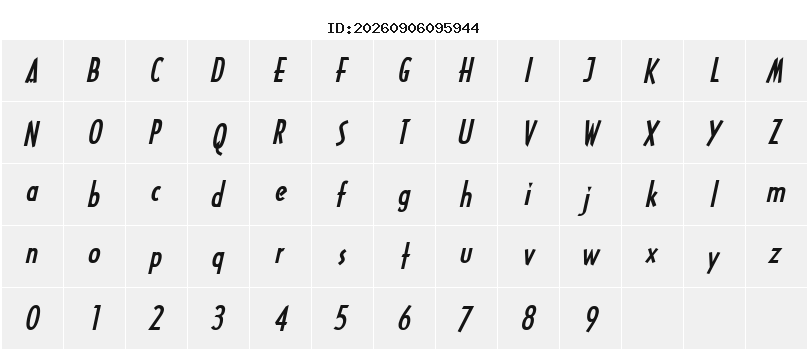
Tech Preview
• Font Name: Tech
• Font ID: FontMonger:Tech Bold Italic
• Full Font Name: Tech Bold Italic
• Version: 1.0 Wed Jul 28 19:04:51 1993
• PostScript Name: TechBoldItalic
• Character Count: 271
About Tech.ttf
Tech.ttf is a modern, elegant sans-serif font designed for ultimate readability and visual harmony. Perfect for branding, headlines, web design, and print materials.